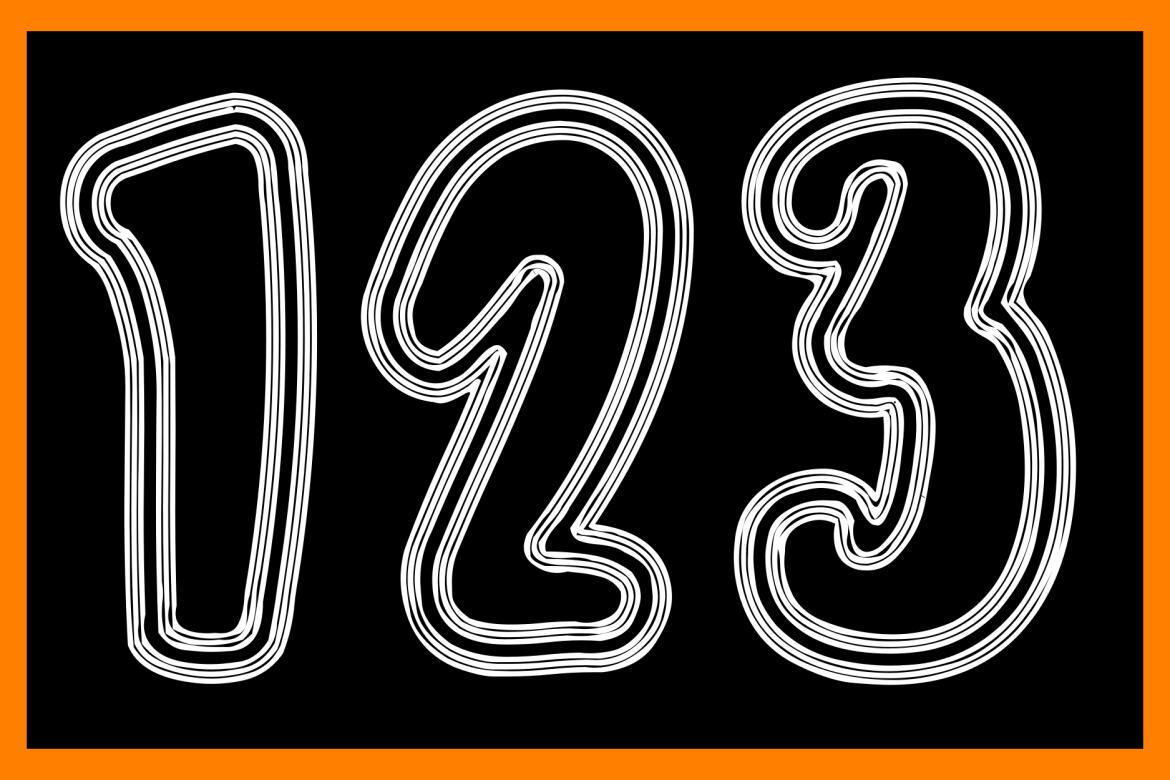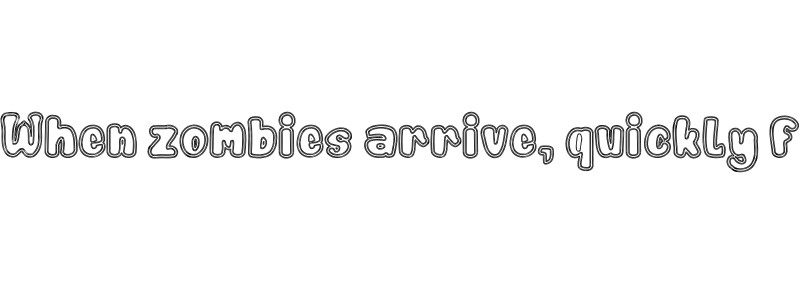
The Pumpkin - Free Font
The Pumpkin
The Pumpkin is a fun, jolly, and incredibly charming display font. It embodies playfulness and authenticity and is the perfect choice for any children activity or school project!